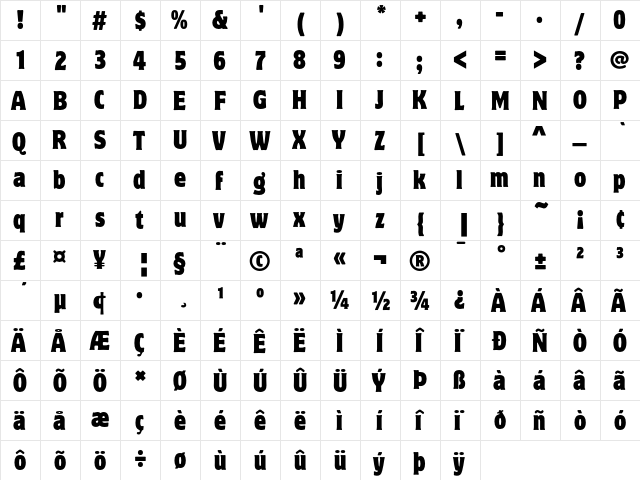
MotterCorpusCondICG Regular
Design Context for MotterCorpusCondICG Typeface
MotterCorpusCondICG takes a measured approach to typography — its balanced proportions and neutral character make it a reliable workhorse for both digital and print work. Its narrow stance lets it pack a punch even in space-constrained designs.